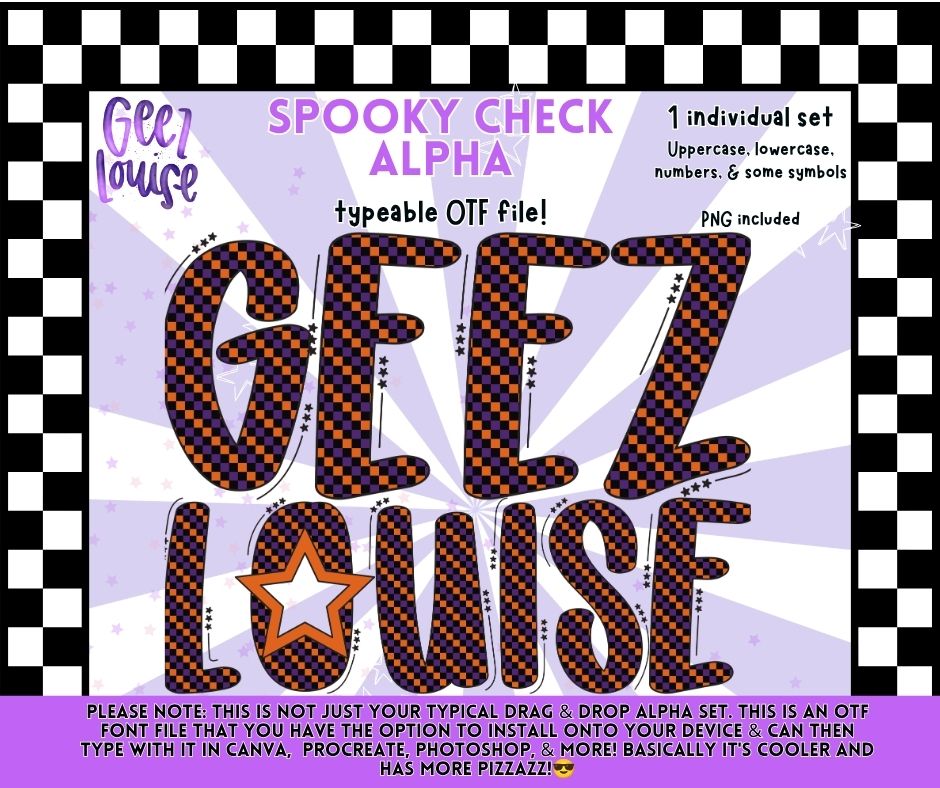
Spooky Check Alpha Font OTF | Halloween Checker Alphabet PNG | Orange Purple Font | Typeable Font
๐๐ค Add a spooky twist to your typography with Spooky Check Alpha! This bold typeable font features a vibrant orange and purple checker pattern that's perfect for Halloween apparel, spooky graphics, party invitations, and seasonal branding.
Perfect For:
๐ Halloween Apparel
๐ป Spooky Season Graphics
๐ธ๏ธ Party Invitations
๐ฆ Sublimation Designs
๐ T-Shirts & Sweatshirts
๐ฑ Social Media Graphics
โจ Stickers & Decals
๐๏ธ Boutique Branding